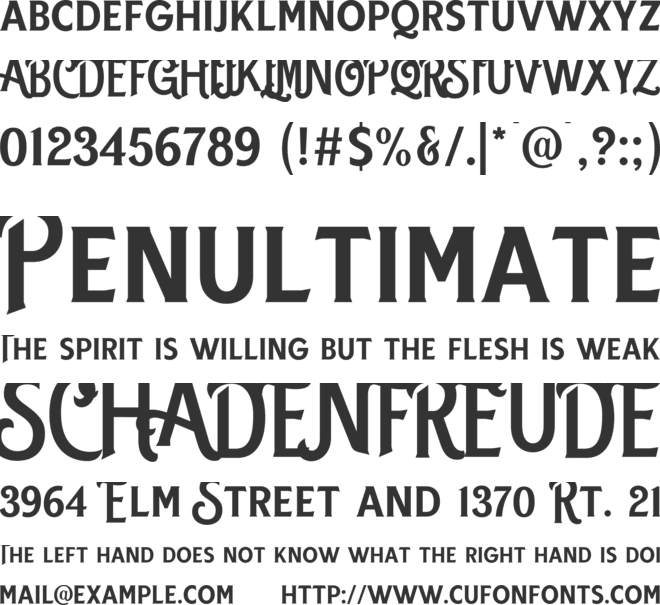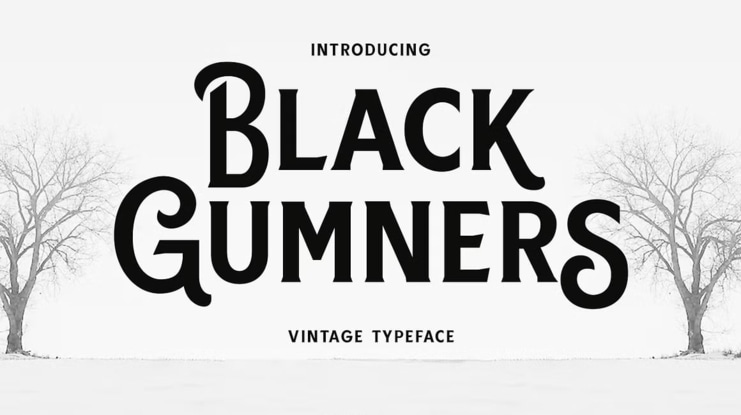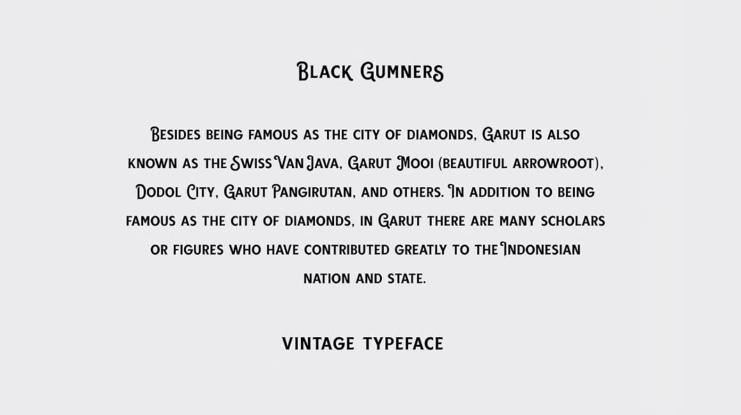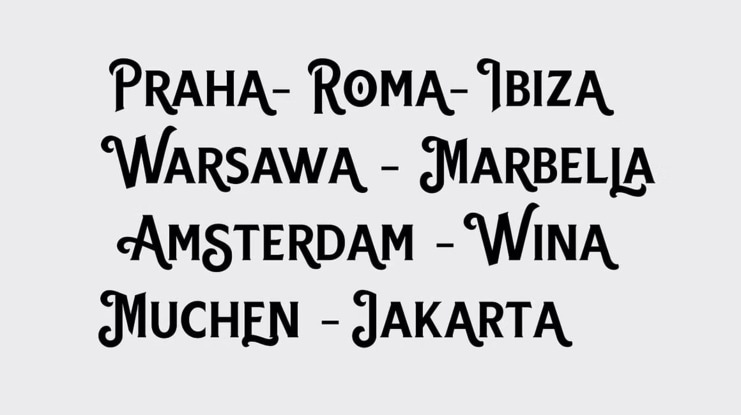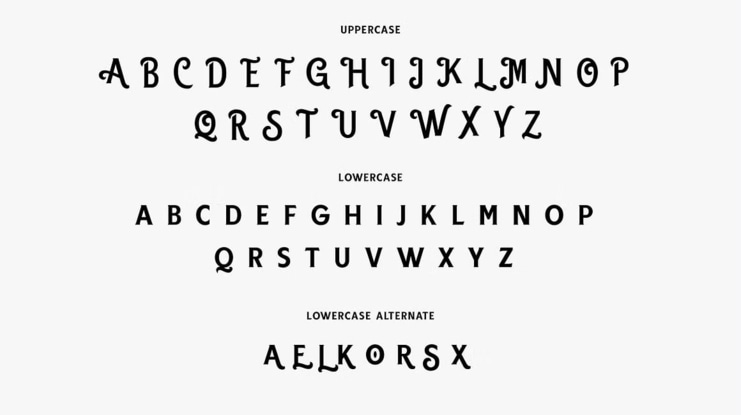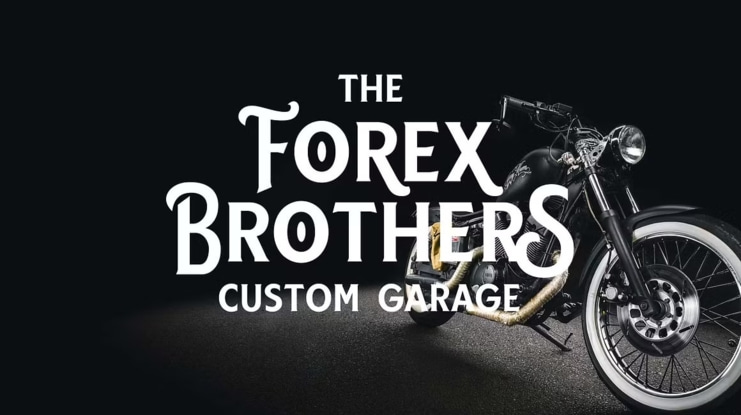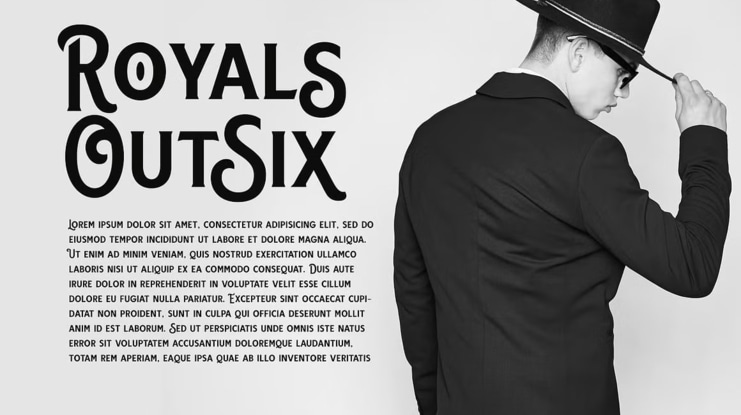
Black Gumners Font
Does your company's logo or typeface need an update? You're looking for something with just the right touch to make it stand out.
Take a look at Black Gumners Vintage Font! With vintage packaging and advertising from the early twentieth century as its inspiration, it is perfect for classic logos, headlines, or package designs. With this font pack, you can also easily create beautiful old-style layouts in seconds with vintage logos included!
Character set A-Z with special capital letters. Stylistic Alternations. Numbers & Punctuation. This typeface brings your brand back in time. Download Today!